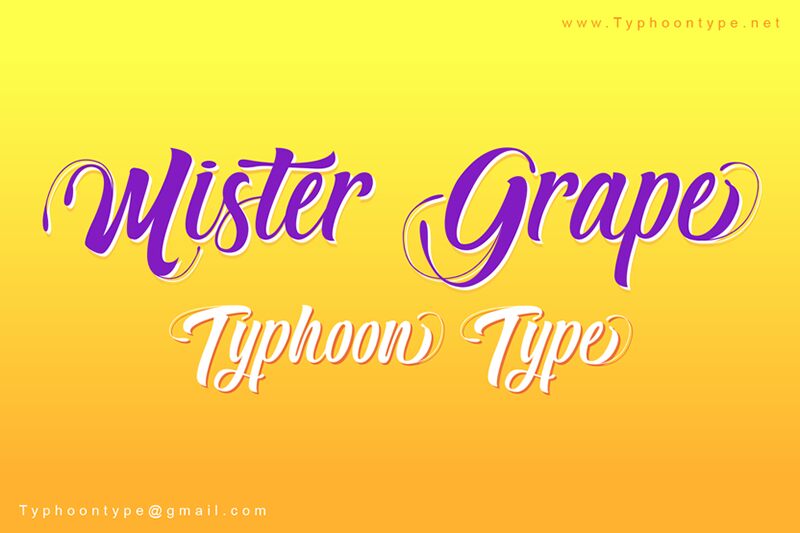
Mister Grape font by Typhoon Type - Suthi Srisopha is an elegant and flowing free calligraphy font perfect for those who love creativity and individuality in their work. It is sophisticated, decorated, vintage-inspired, and full of unusual ornaments that make it clearly one of a kind. The font is highly readable thanks to the balanced thickness of its strokes but still modern due to its round shapes.
Mister Grape supports multiple languages so it will work perfectly with headlines in English as well as those in French or Spanish. Magazine covers, posters, brand logos & identities, and packages are other great places where this font gets to shine. Websites and social media images are also valid options!